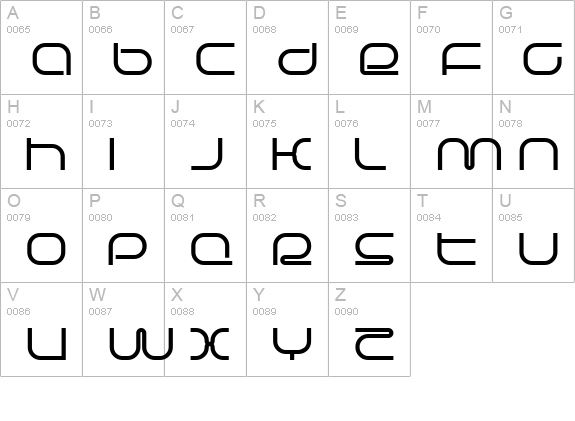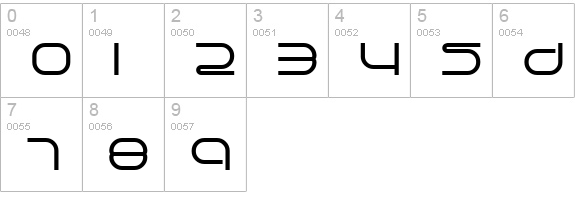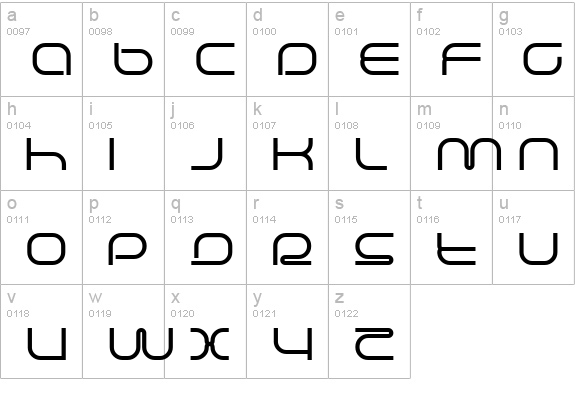
Life support Font Details
Life Support font is a versatile and modern typeface that exudes a sense of elegance and sophistication. Its sleek lines and smooth curves make it perfect for a wide range of design projects, from branding to editorial design. This font is designed to provide a clean and professional look, making it ideal for both digital and print applications. The best part about Life Support font is that it is available for free download at FontsMarket.com. This means that you can easily access this high-quality font without having to spend a dime. Whether you are a graphic designer, a web developer, or a small business owner looking to enhance your branding, Life Support font is a great choice that won't break the bank. With its timeless design and free availability, Life Support font is a must-have for anyone looking to elevate their design projects. Download it today and see how this versatile font can take your work to the next level.